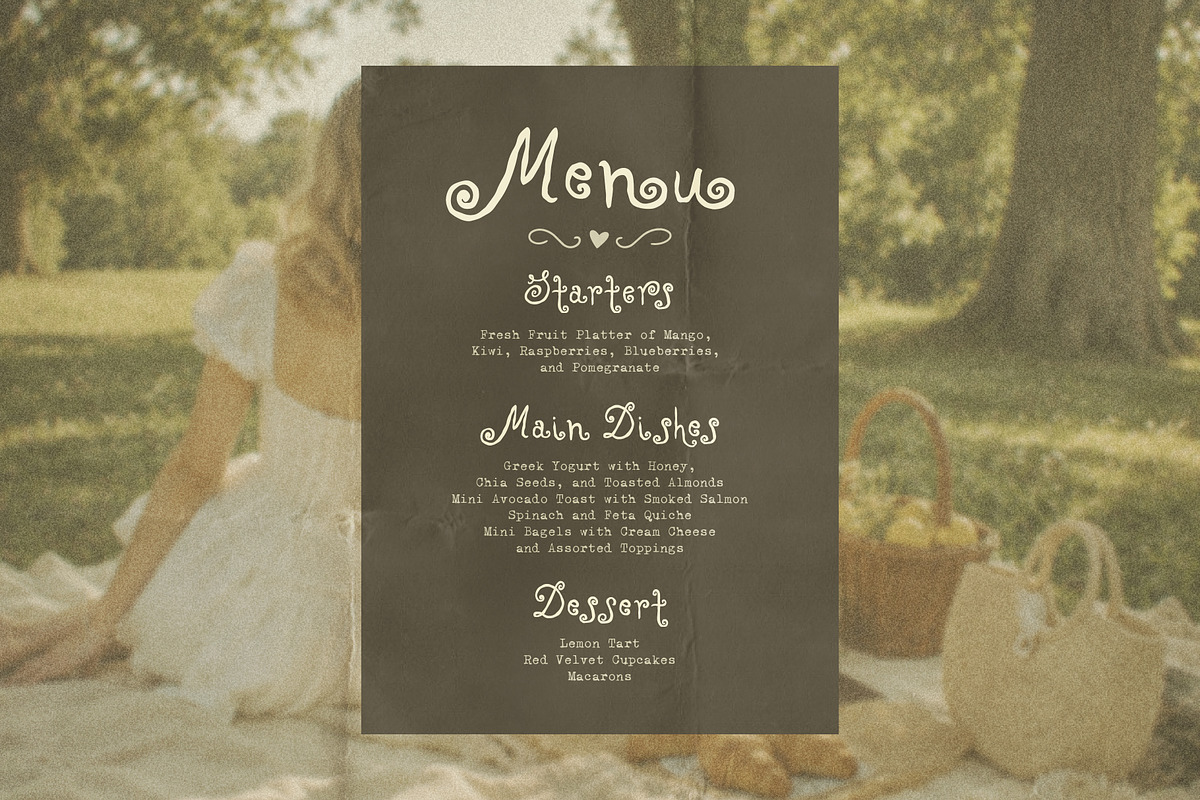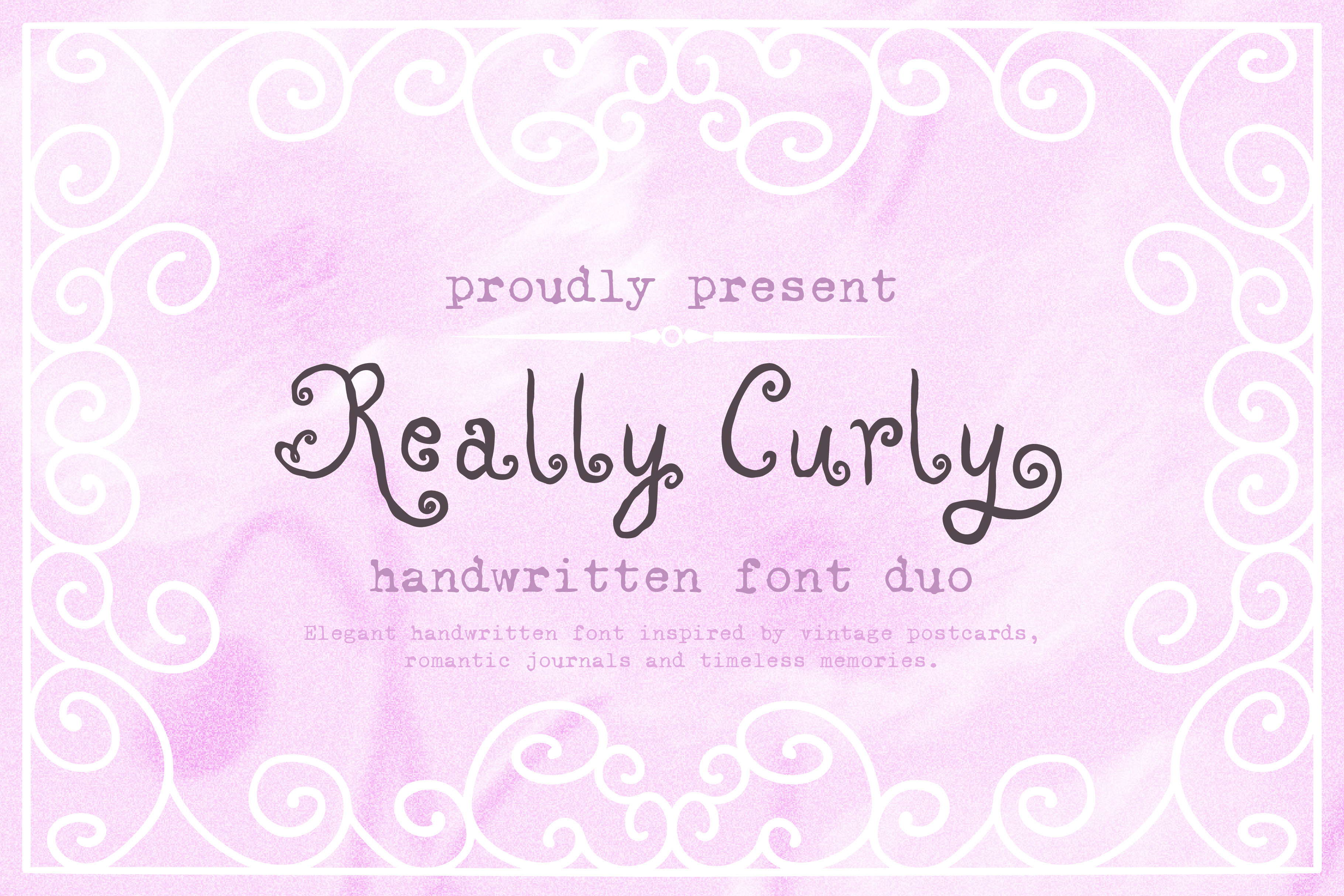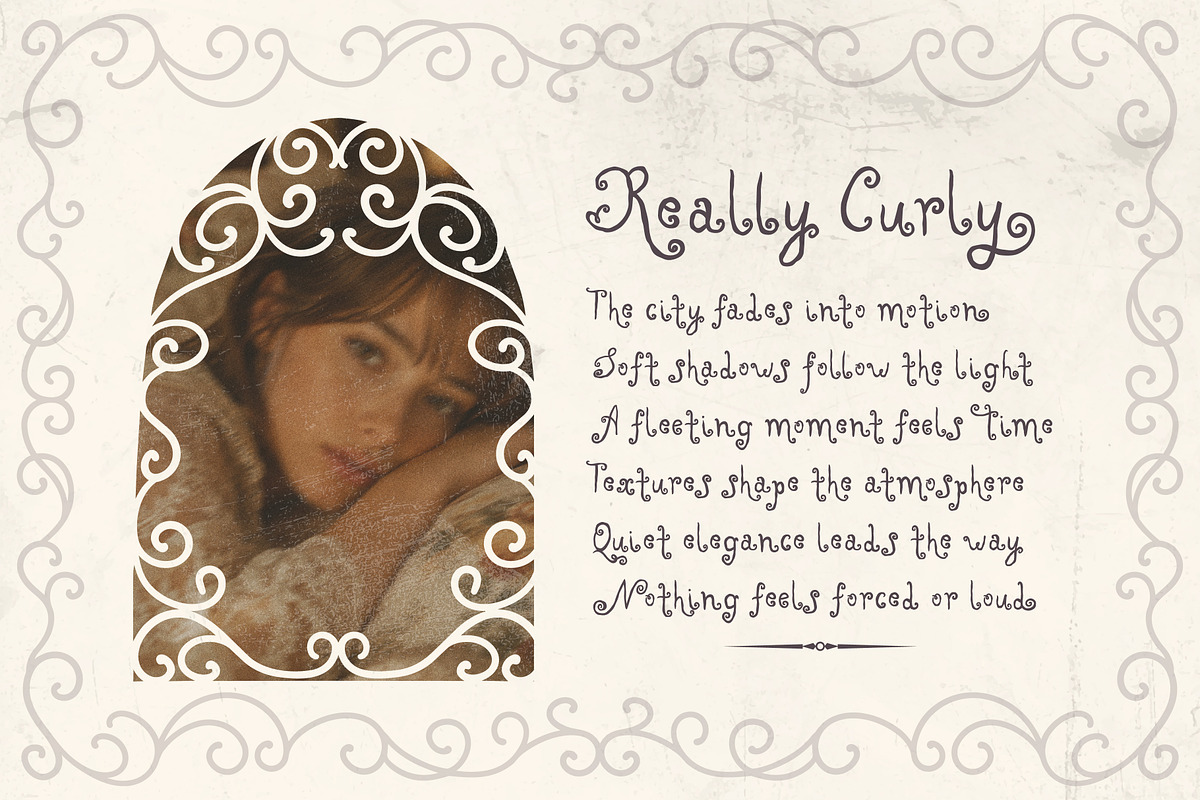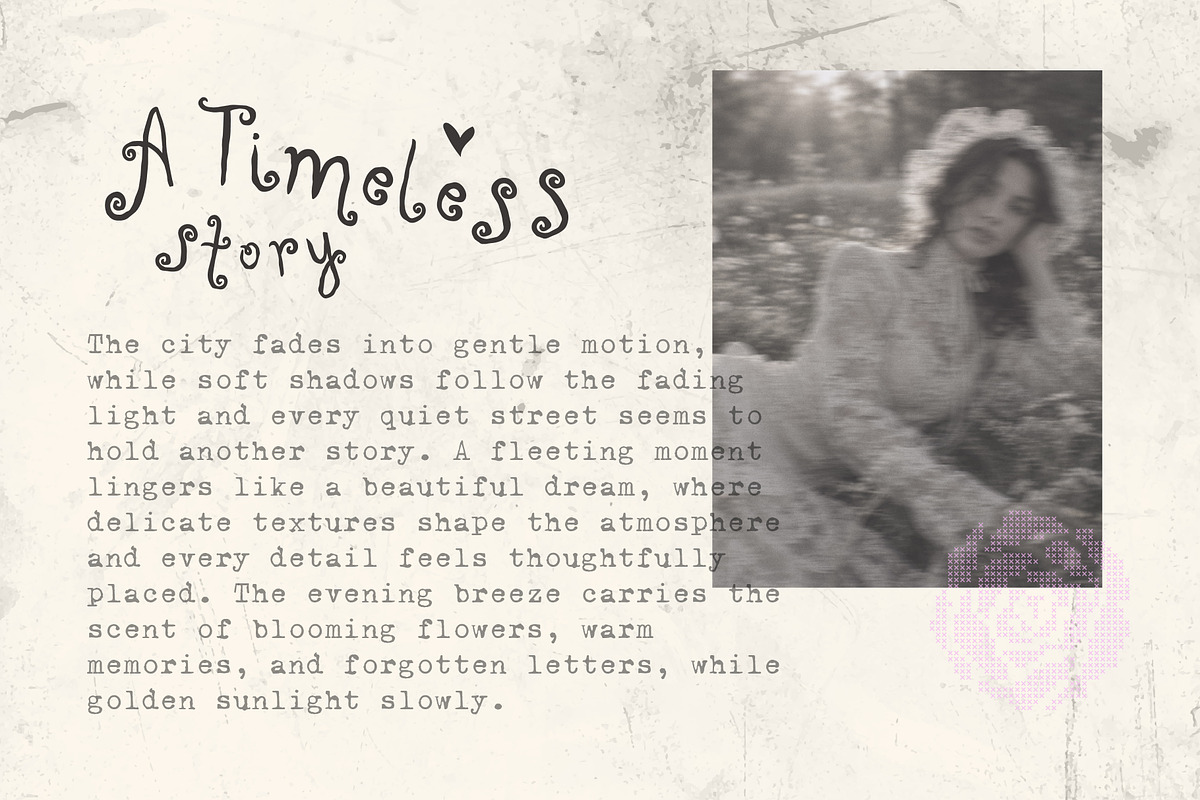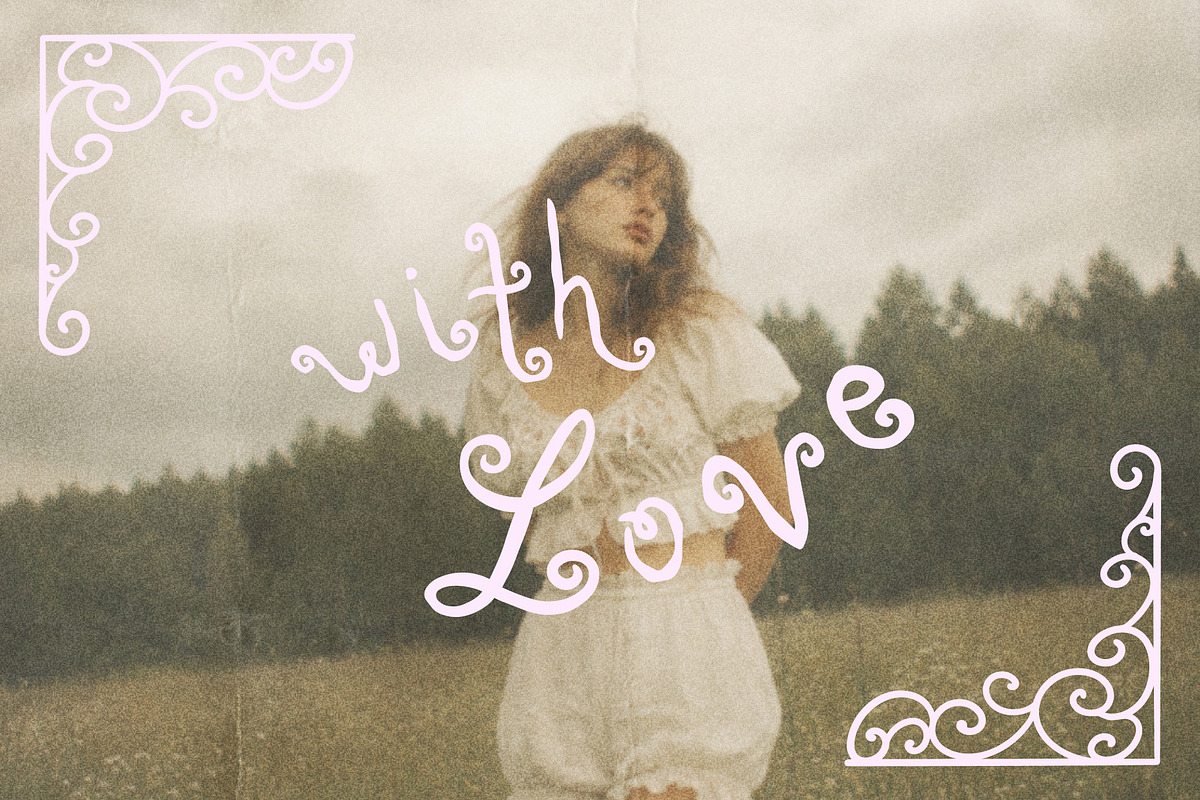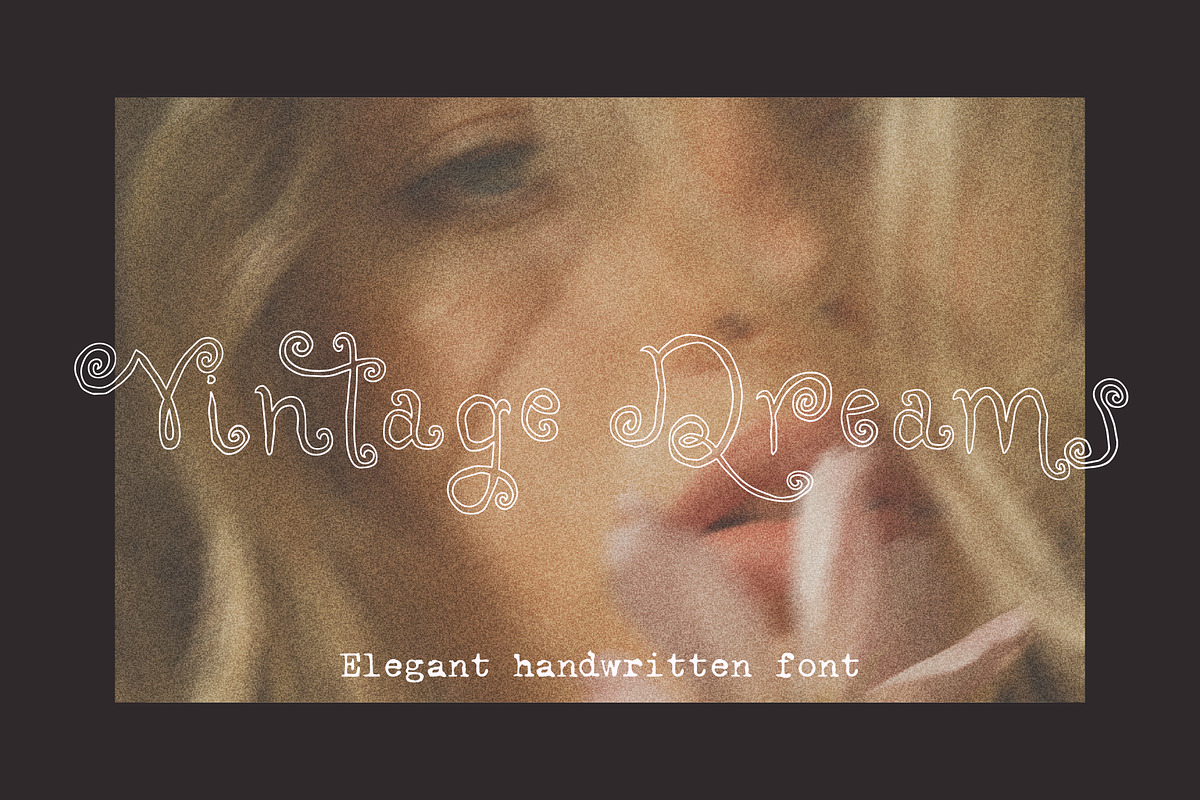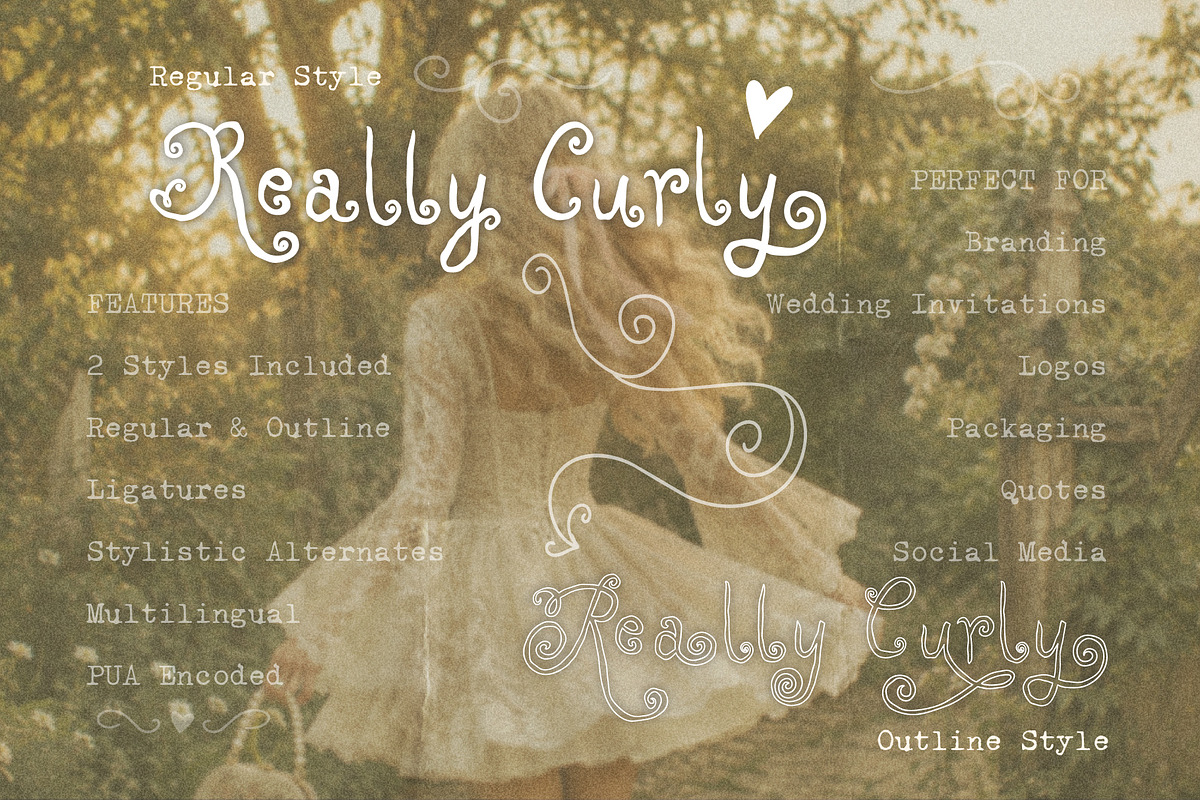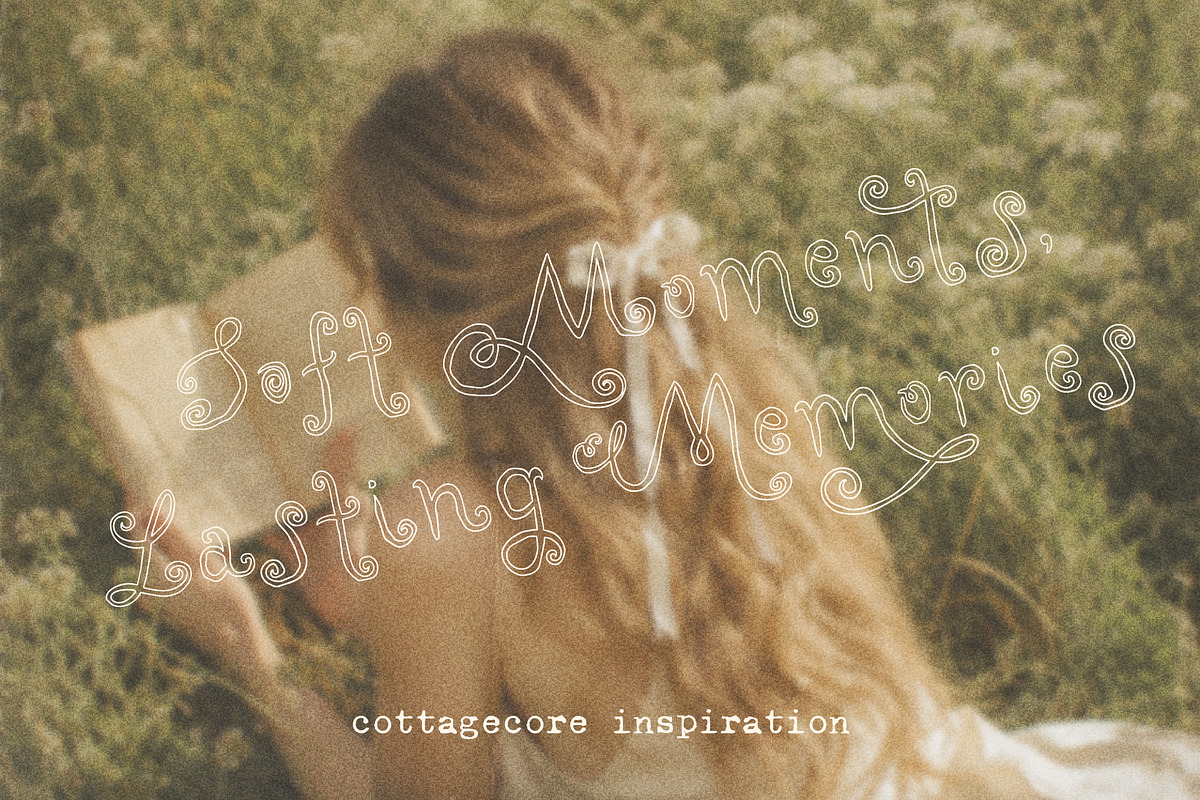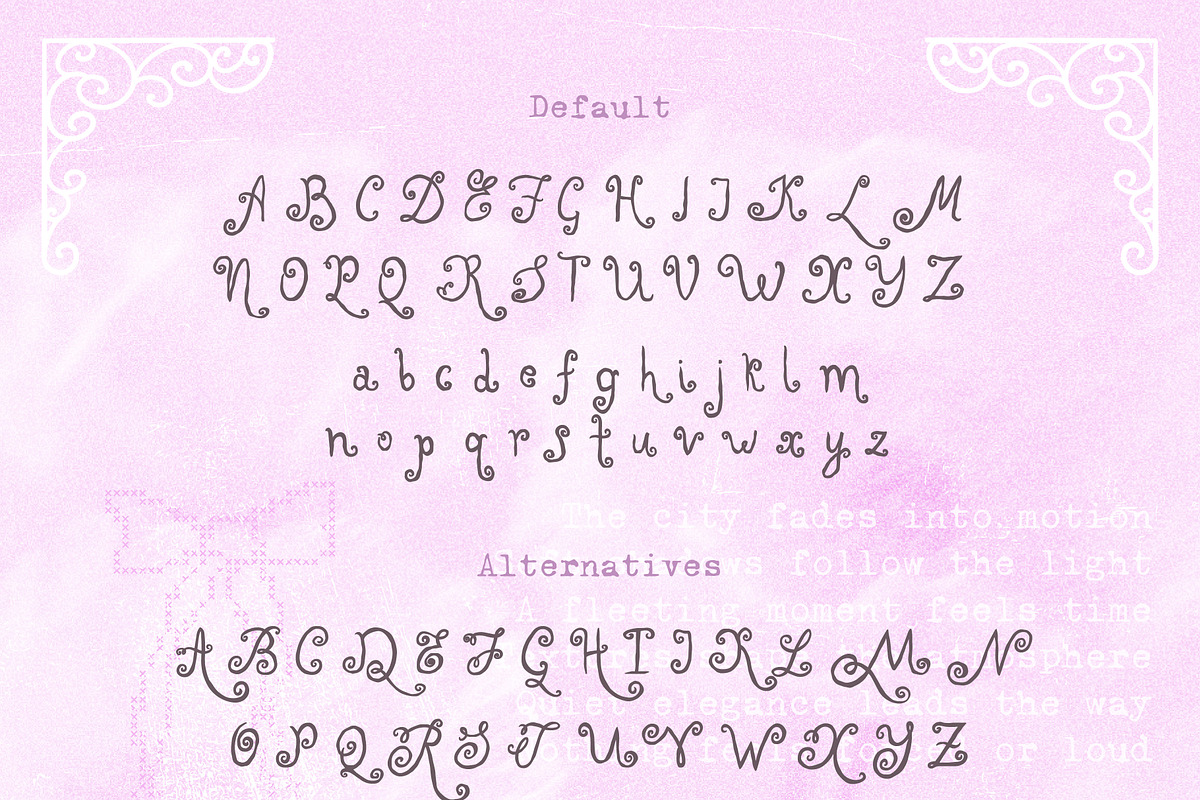
Really Curly Font
Really Curly is a whimsical handwritten font duo filled with elegant curves, playful swashes, and romantic vintage charm. Inspired by handwritten love letters, vintage postcards, dreamy journals, and timeless memories, this font brings a delicate and enchanting personality to every design.
With its expressive letterforms, decorative flourishes, and beautiful flowing shapes, Really Curly is perfect for designs that need a soft, feminine, and nostalgic touch. Use the Regular style for an elegant handwritten look or switch to the Outline style for a lighter, dreamy effect.
Really Curly is perfect for creating wedding invitations, romantic stationery, logos, branding, packaging, greeting cards, quotes, social media graphics, book covers, journals, posters, boutique designs, beauty branding, and editorial projects.